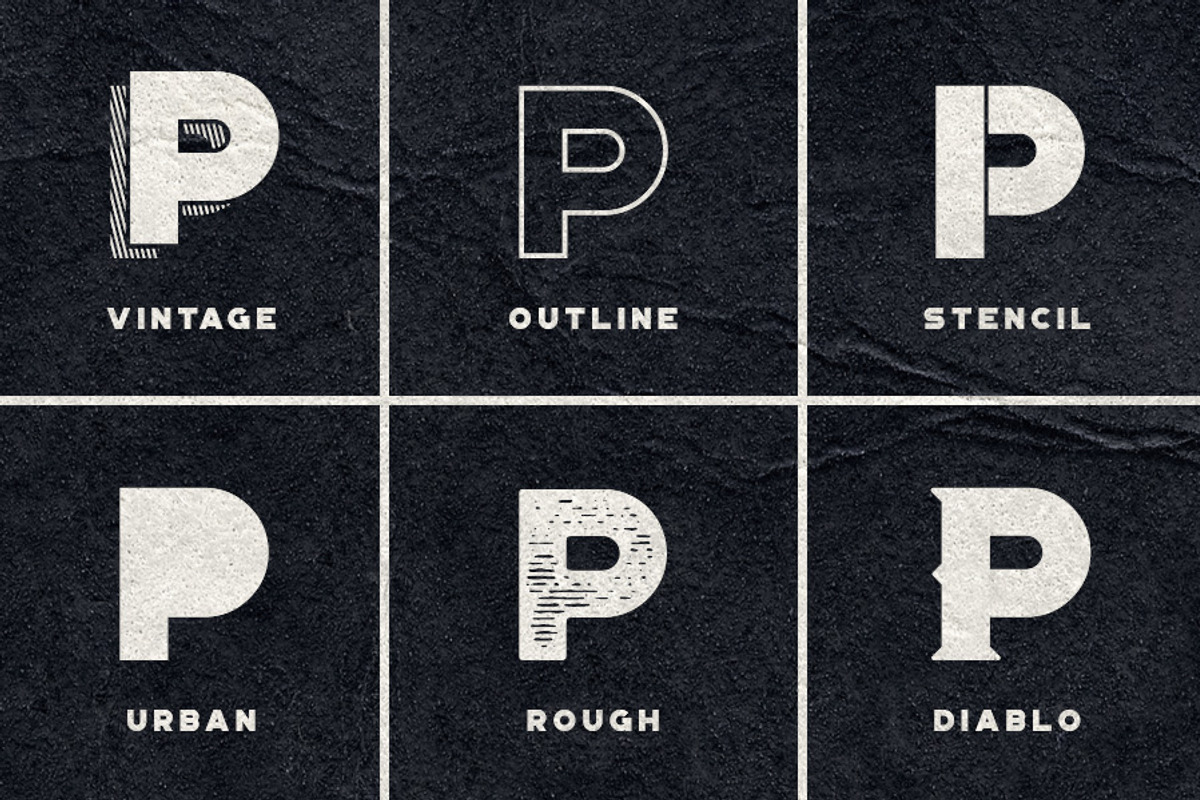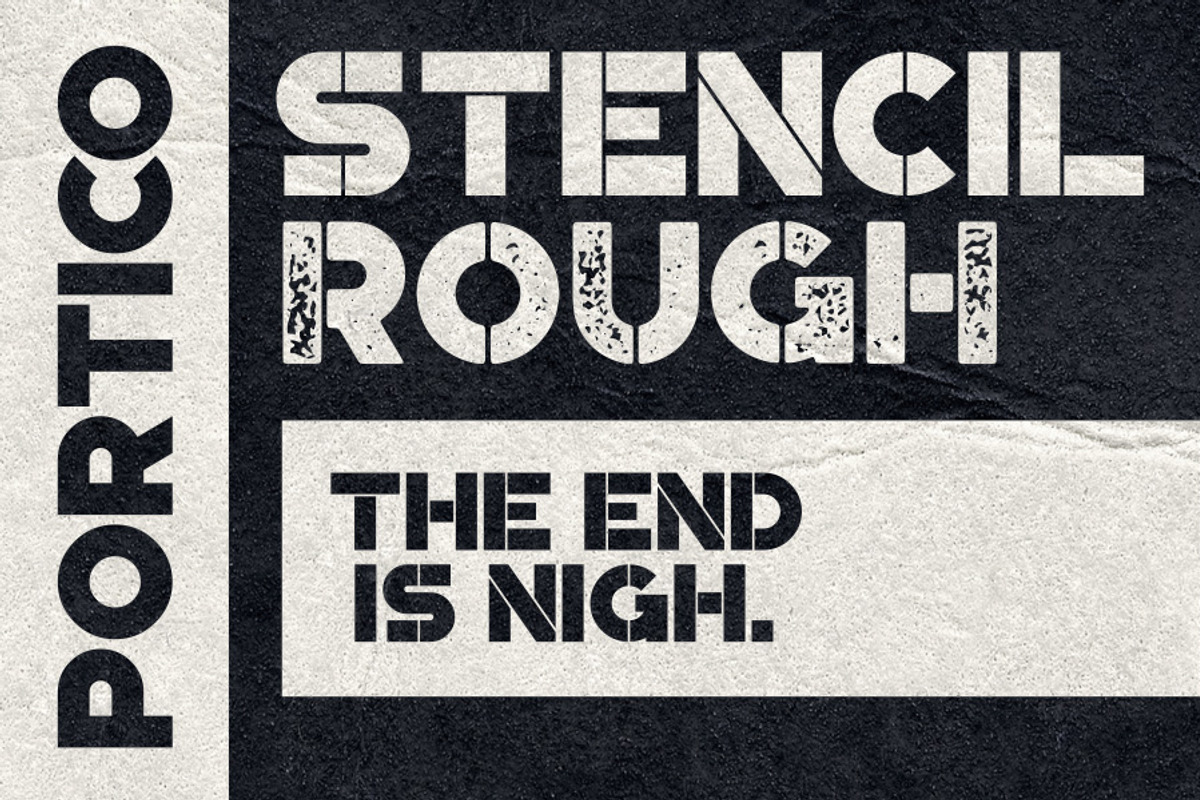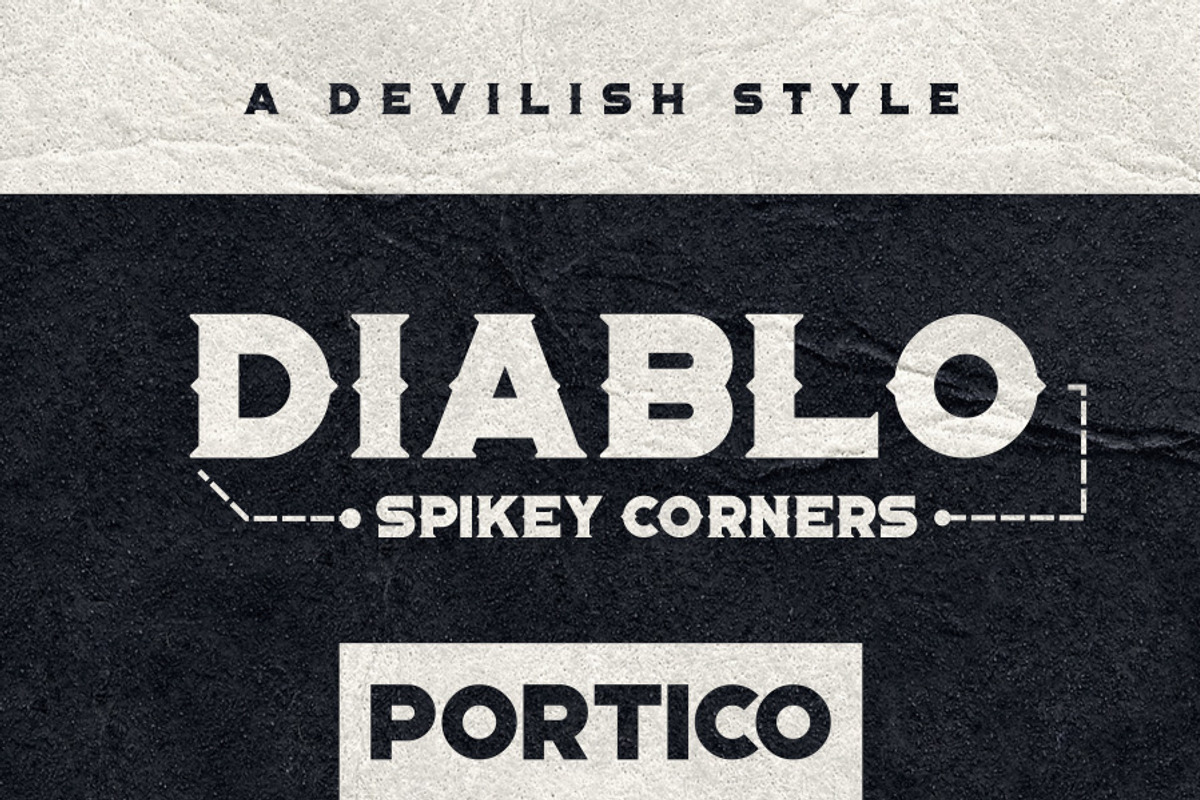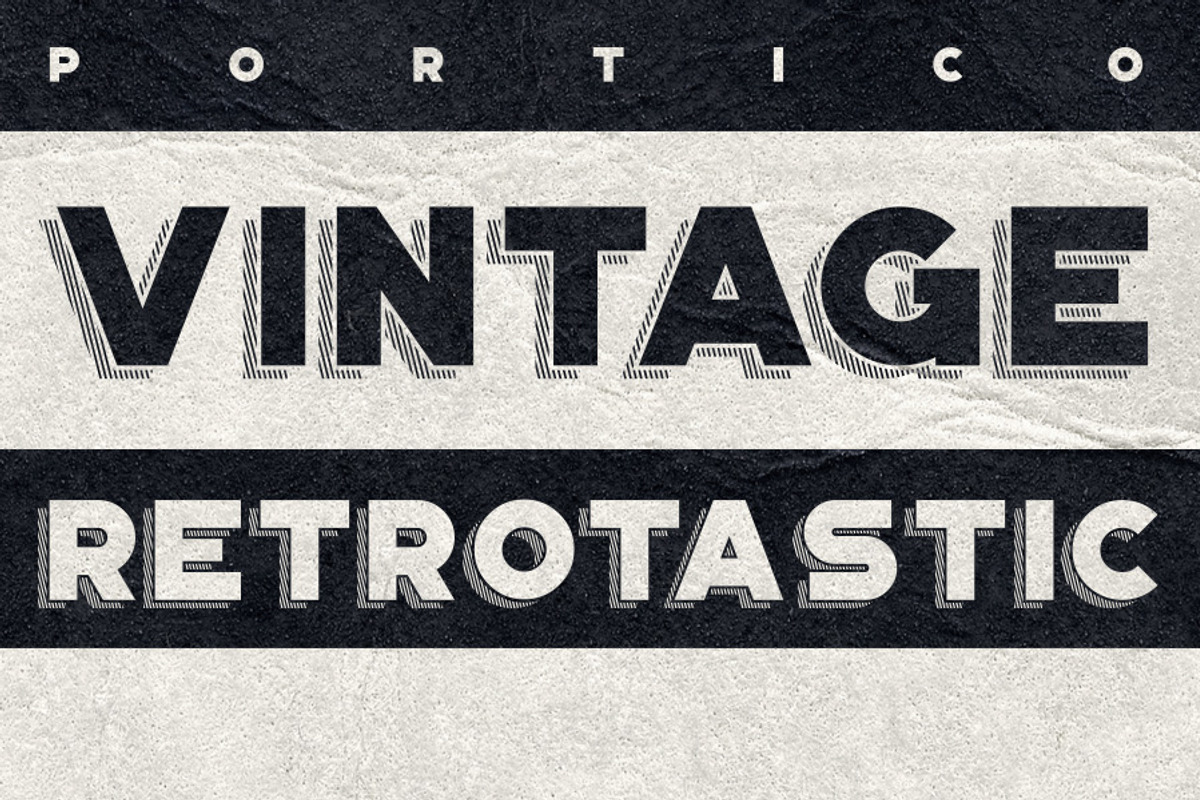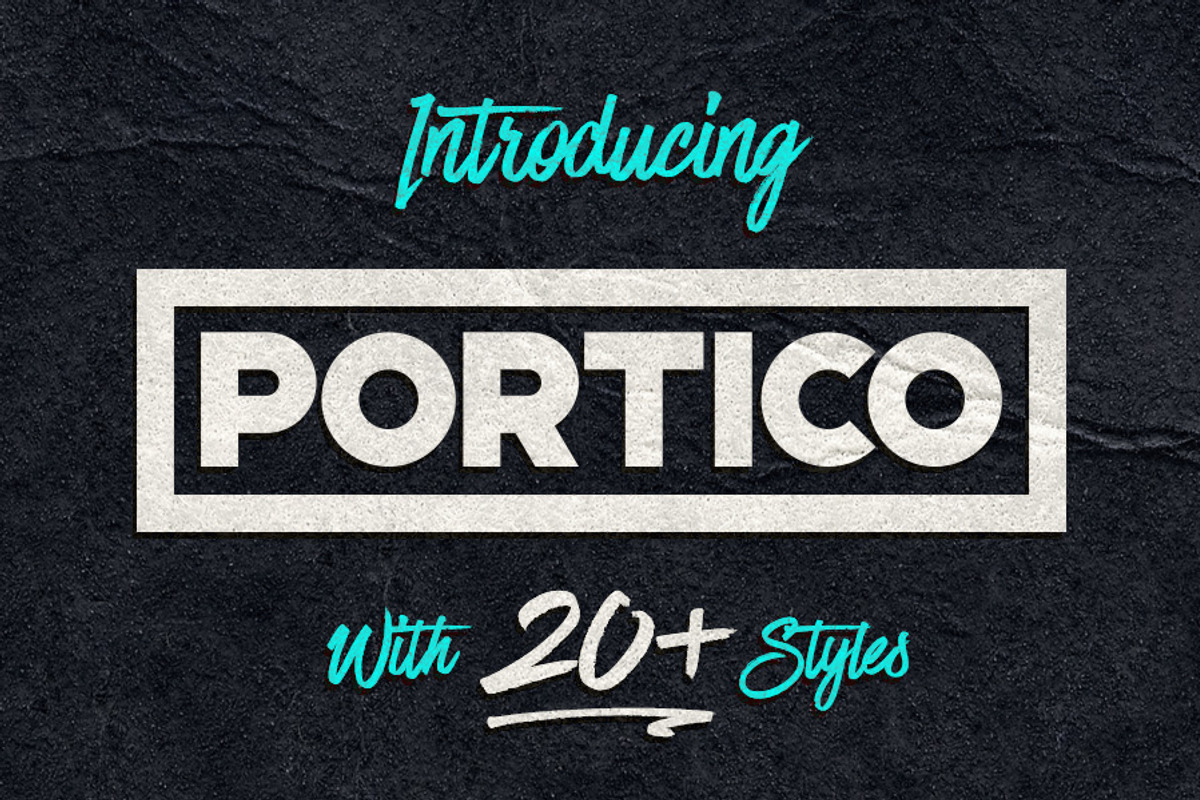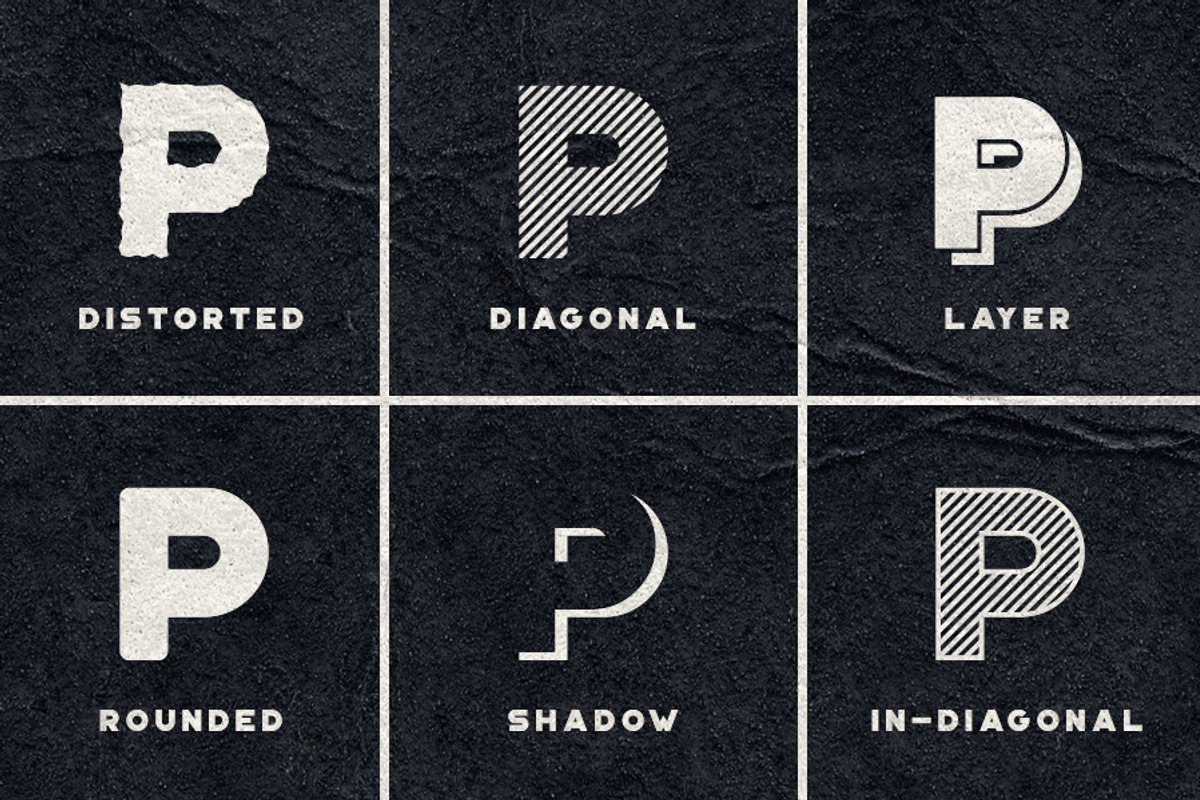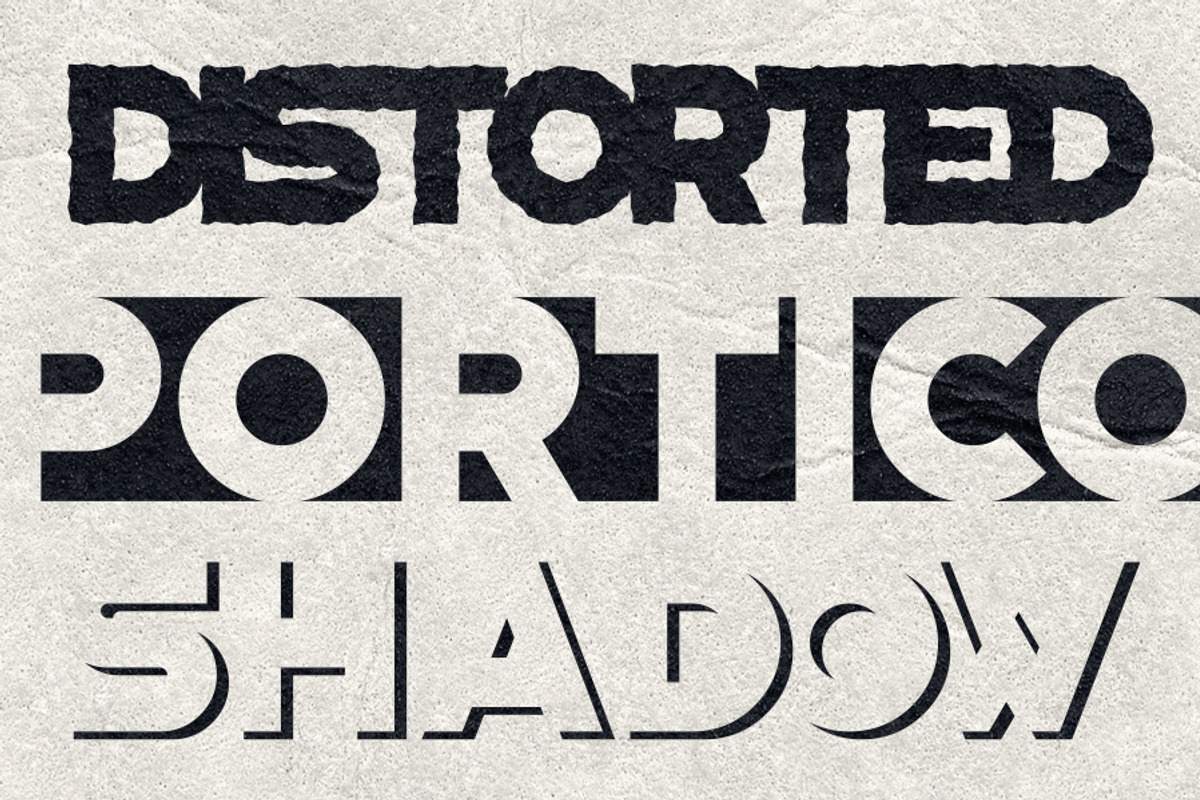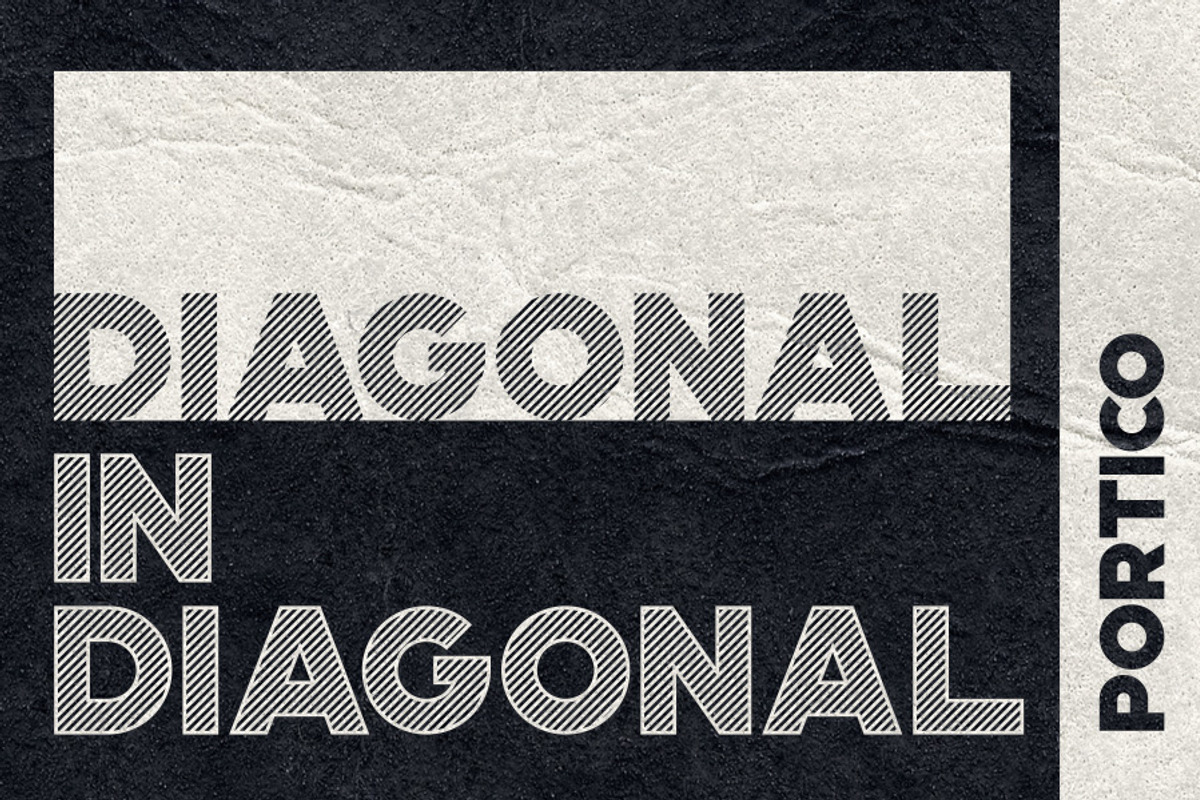
Portico Typeface
Portico Typeface by Tugcu Design Co. is a font selected for branding, posters, packaging, typography.
- It includes uppercase multilingual letters, numbers and punctuation.
- Portico Light
- Portico Light Rough
- Portico Light Oblique
- Portico Regular
- Portico Oblique
- Portico Diablo
- Portico Diagonal
- Portico Distorted
- Portico Indiagonal
- Portico Layer
Portico Typeface by Tugcu Design Co. fits naturally into Branding, posters, packaging, typography.